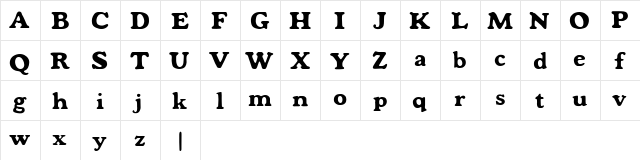
Mondeur Regular
Design Context for Mondeur Typeface
Mondeur is a composed and adaptable typeface that performs quietly and consistently across a wide range of design contexts.